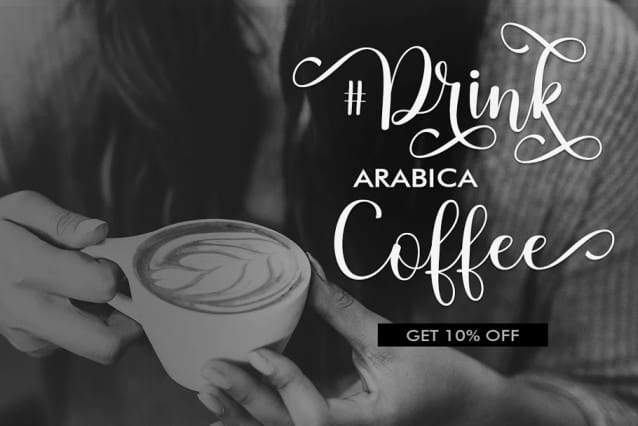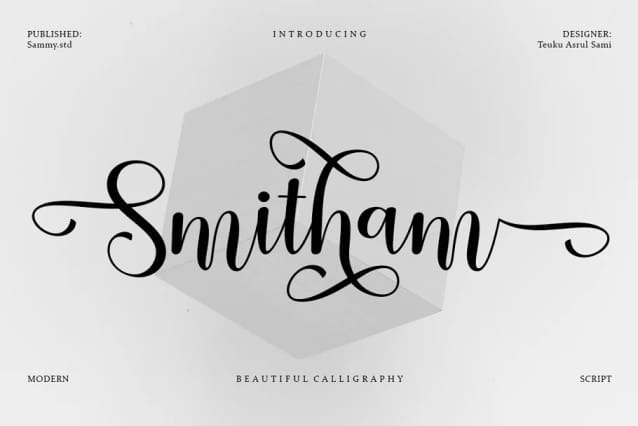
Smitham Calligraphy Font
Smitham Calligraphy Font is a beautiful typefaces. Can be used for various purposes.such as logos, wedding invitation, t-shirt, letterhead, signage, news, posters, badges etc.
Smitham Script features alternate characters, ligatures and multiple language support.